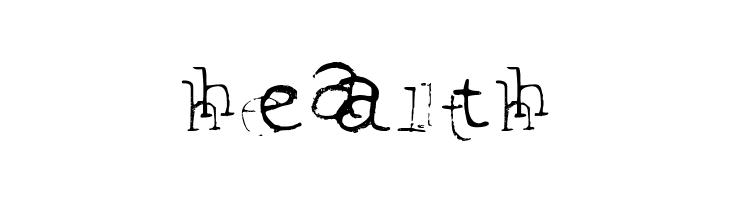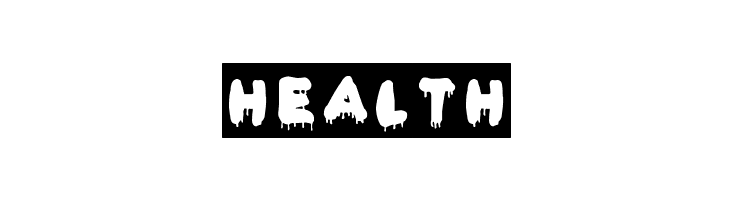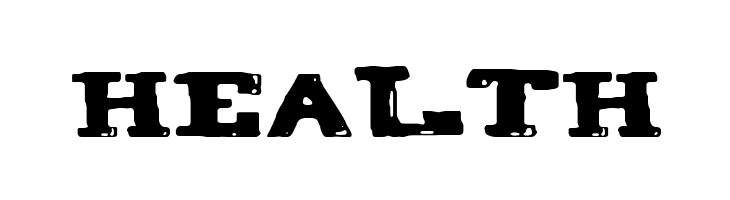
A dynamic and fluid handwritten font with expressive letterforms.
A retro, pixelated font inspired by early computer graphics.
A quirky, distressed typewriter-style font with a vintage aesthetic.
A bold, grunge-style font with a distressed, edgy appearance.
Ornate, hand-drawn esoteric symbol dingbats in a vintage tattoo style.
A playful, hand-drawn font with letters in imperfect circles, perfect for creative projects.
A bold, dripping font with a spooky, horror-themed aesthetic.
A bold, playful font with a vintage, distressed look.
A bold, textured font with a stippled effect, perfect for impactful designs.
A bold, decorative font with a vintage, distressed style.